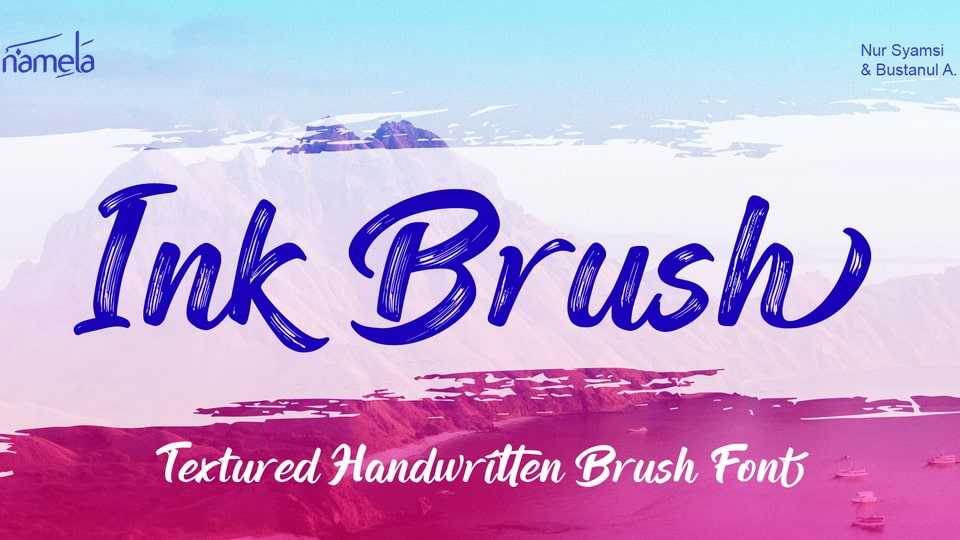
Download The Ink Brush font, a captivating addition to the world of typography. This versatile typeface offers two distinctive versions, adding a dynamic element to your creative projects.